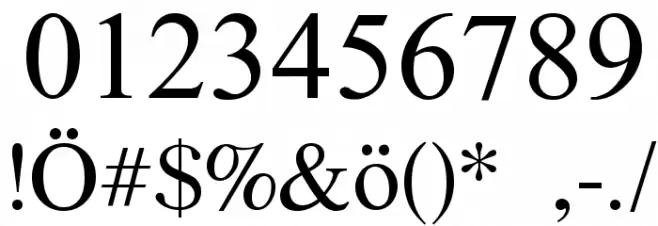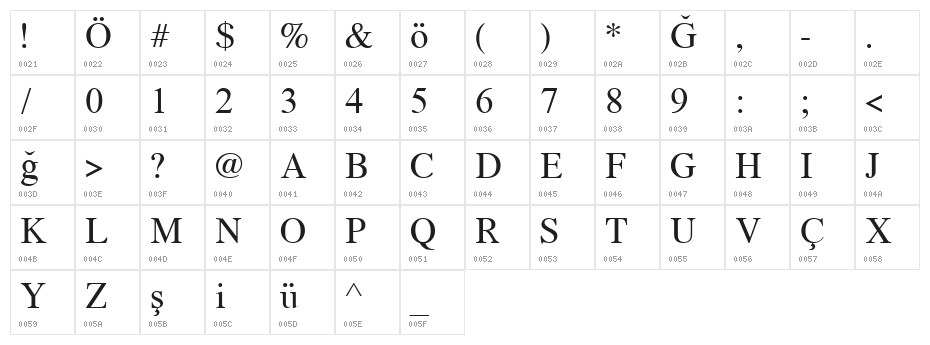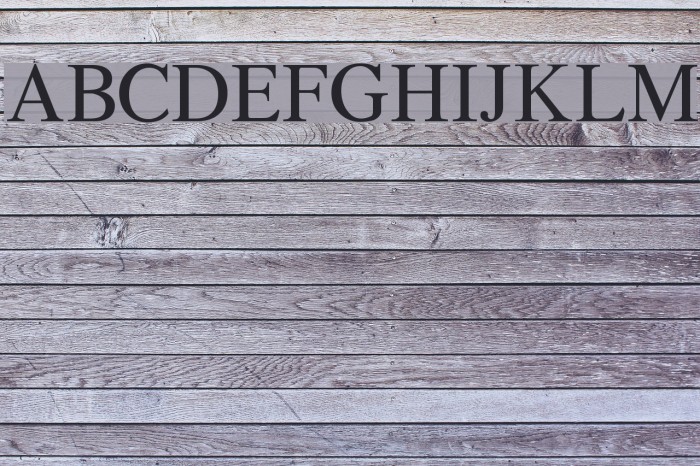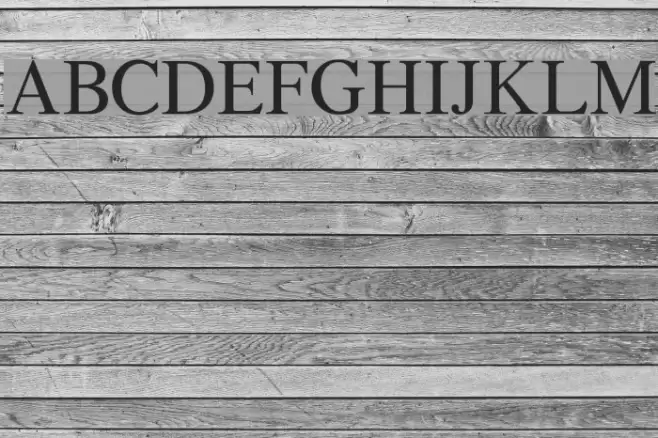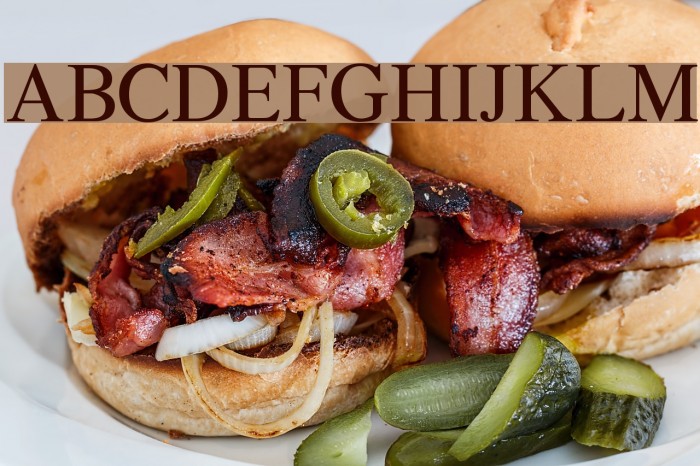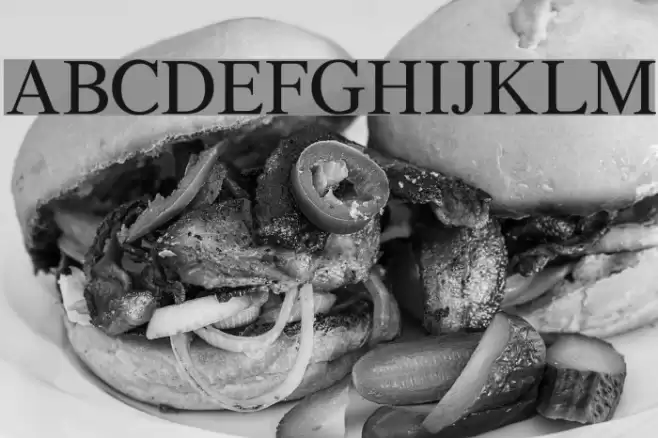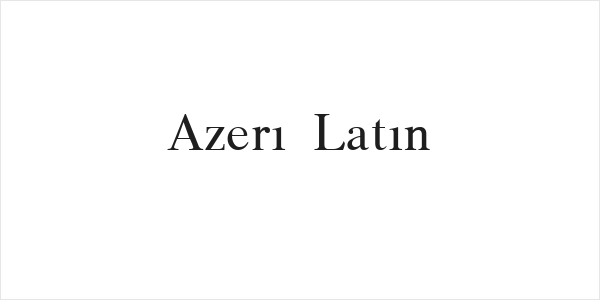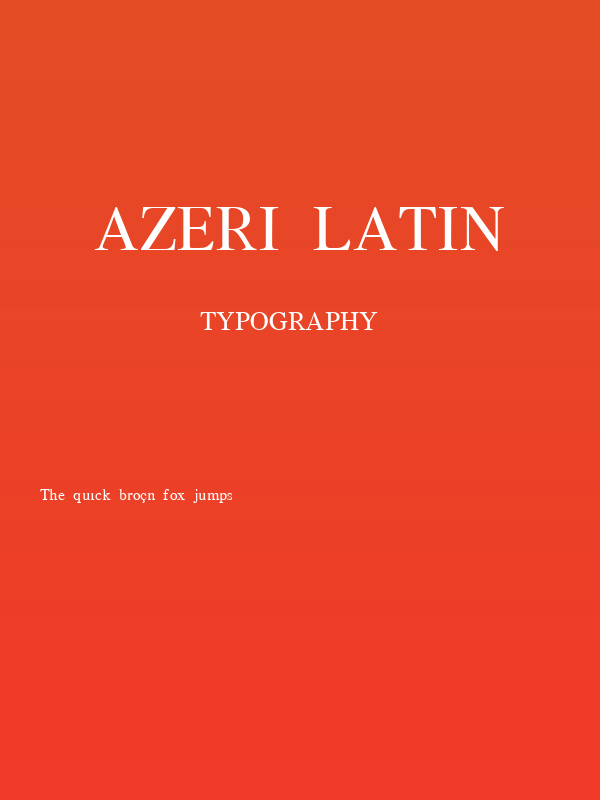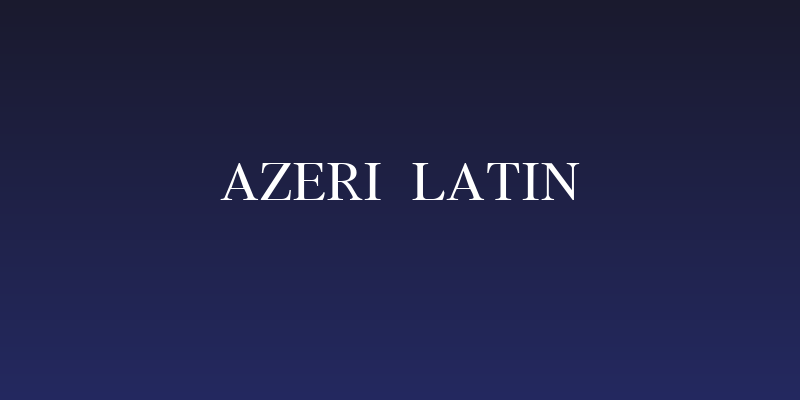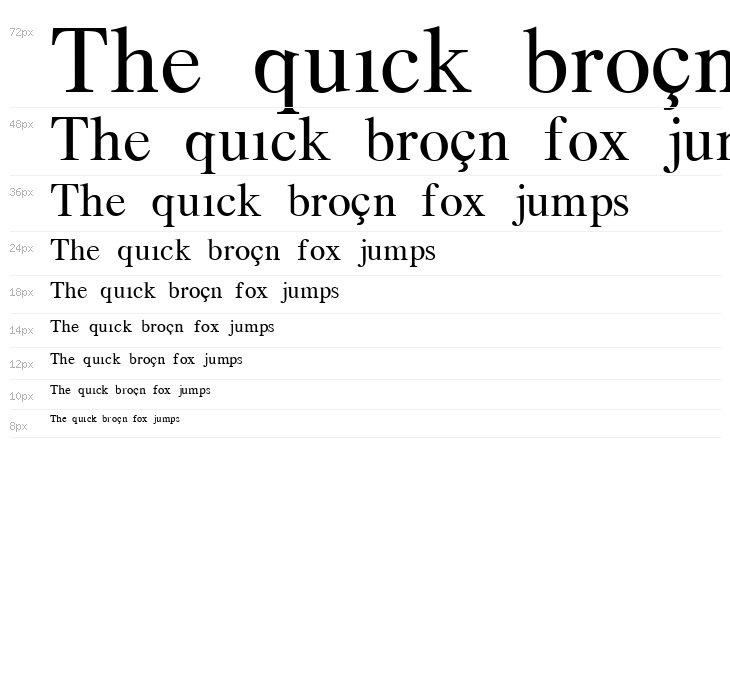
Azeri Latin Font
Azeri Latin Description
This font exhibits a classic serif style with a strong presence and elegant curves. The uppercase letters are bold and commanding, while the lowercase letters maintain a refined and sophisticated appearance. The numerals are clear and well-defined, making them easily readable. Special characters are included, adding versatility to the font's application. The overall design is balanced, with a medium contrast in stroke thickness that enhances readability without sacrificing style. This font is suitable for formal and professional settings, offering a timeless appeal.
AZERI-LATIN UPPERCASE
AZERI-LATIN LOWERCASE
AZERI-LATIN OTHER CHARS